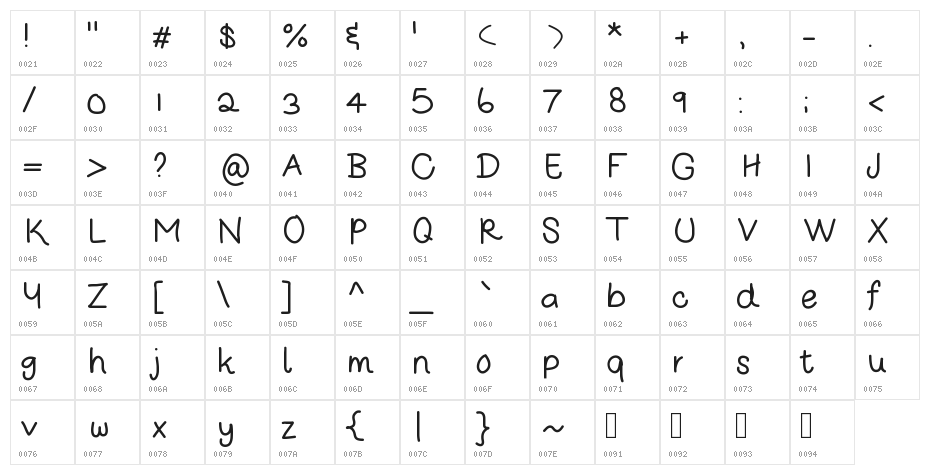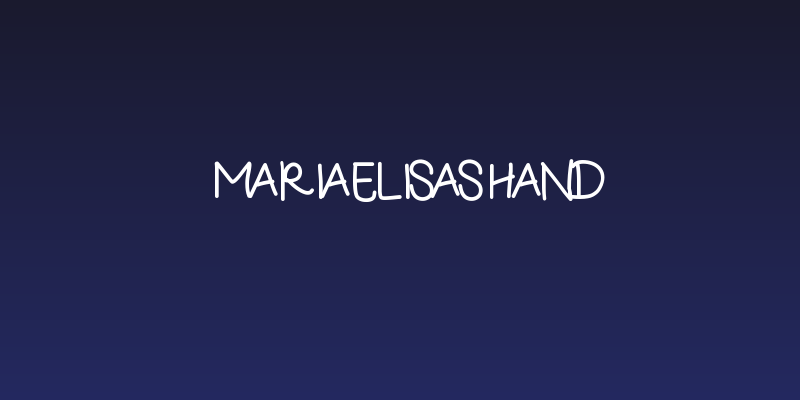
MariaElisasHand Font
MariaElisasHand Description
This font exudes a playful and casual handwritten style, characterized by its smooth, rounded strokes and slightly uneven baseline, giving it an authentic, personal touch. The uppercase letters are bold and prominent, while the lowercase letters maintain a consistent flow, enhancing readability. The numerals and special characters are crafted with the same playful spirit, making them suitable for creative projects. The overall appearance is friendly and approachable, ideal for designs that require a personal or informal tone.
| Proposed Projects | Ideal for greeting cards, children's books, personal branding, and informal invitations. |